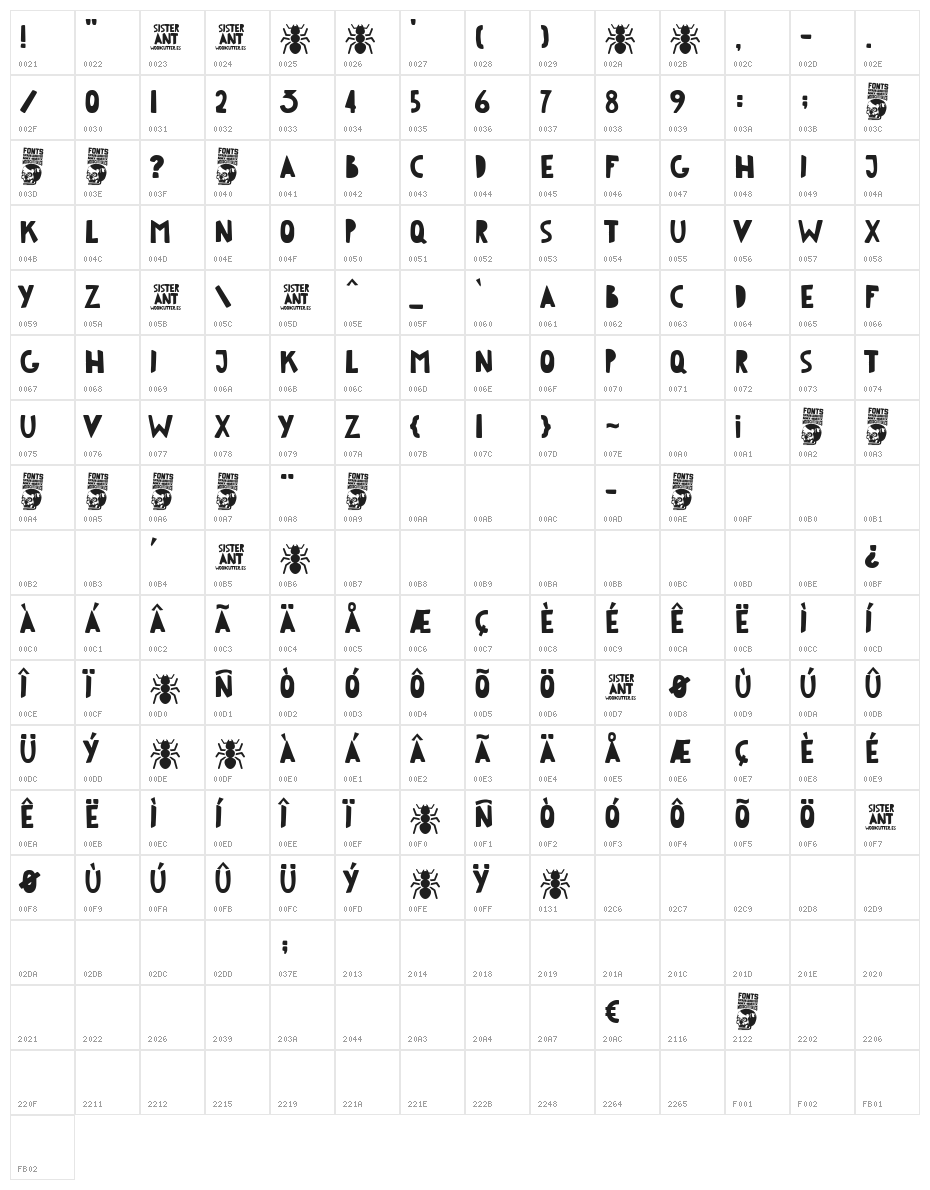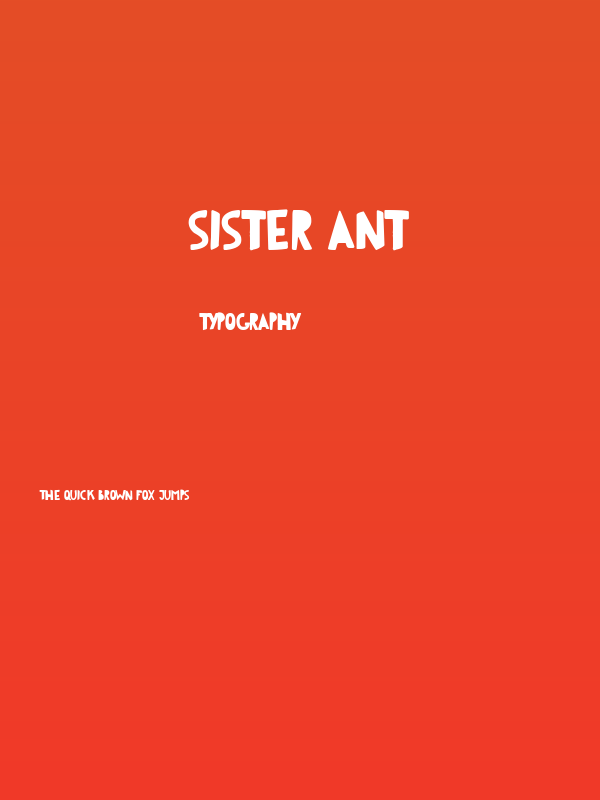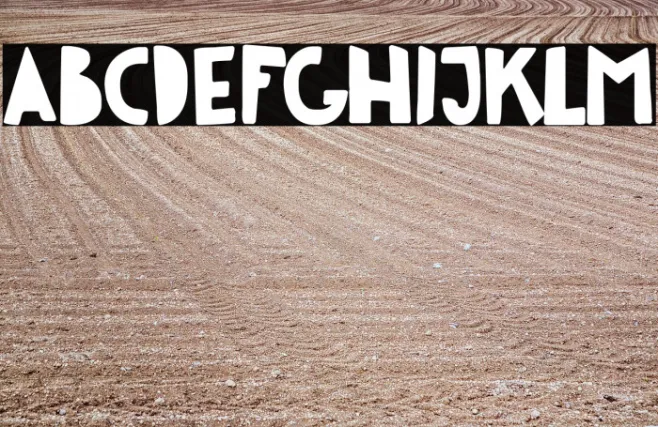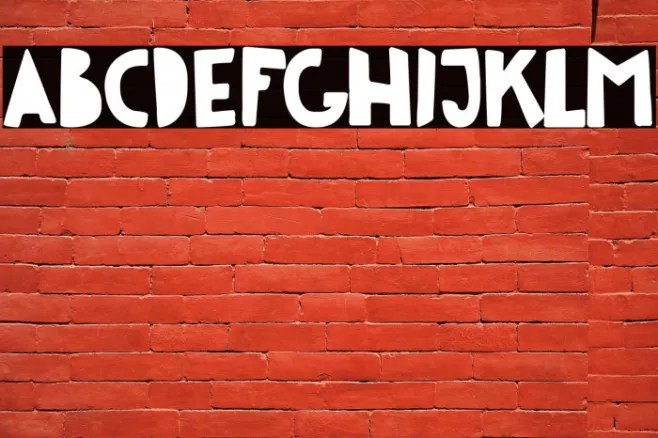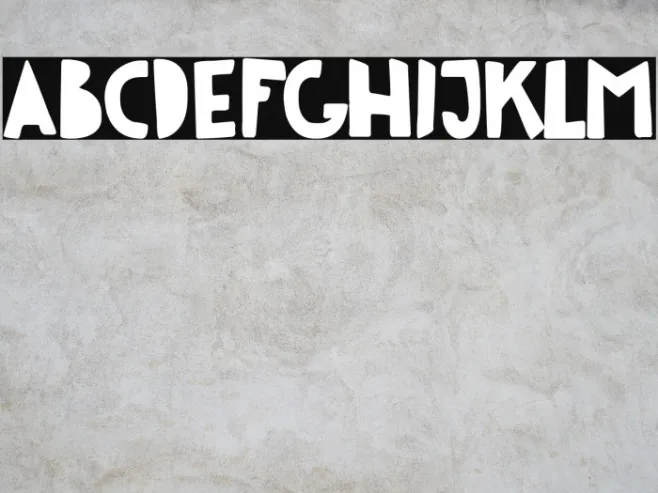
Sister Ant Font
Sister Ant Description
This font features a bold and playful design with a hand-drawn aesthetic. The characters are thick and slightly irregular, giving it a whimsical and informal appearance. The uppercase and lowercase letters maintain a consistent style, with rounded edges and a slightly uneven baseline, adding to its charm. The numbers and special characters follow the same playful theme, making it suitable for creative and fun projects. The overall look is casual and approachable, ideal for designs that aim to convey a sense of fun and creativity.
SISTER-ANT UPPERCASE
SISTER-ANT LOWERCASE
SISTER-ANT OTHER CHARS
| Overall Style | Playful, Whimsical, Casual |
| Proposed Projects | Perfect for children's books, playful branding, party invitations, and creative posters. |